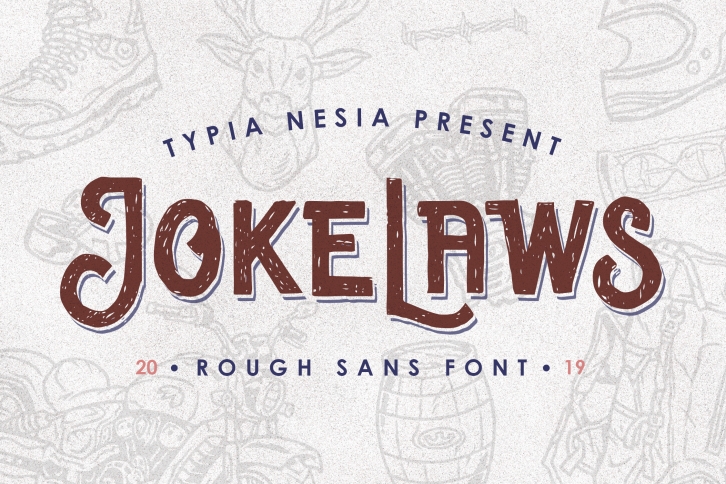
Jokelaws is a trendy and unique font with an authentic style. It was designed by Typia nesia and it's a great choice for creative people who need such a font. It was released on October 25, 2019 and the file size is 8.69 MB. Jokelaws will add an organic vibe to any design idea!